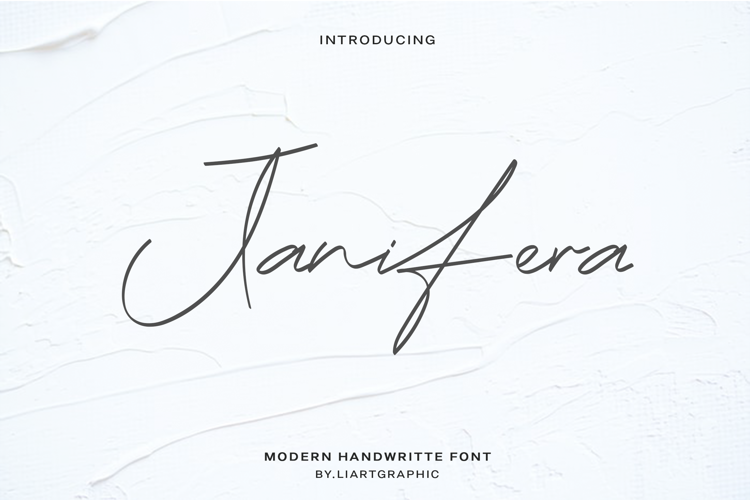
Janifera Font
Janifera is a unique signature style font. It’s a stunning font that will add a creative touch to cards, quotes, wedding invitations, stationery, and much more!